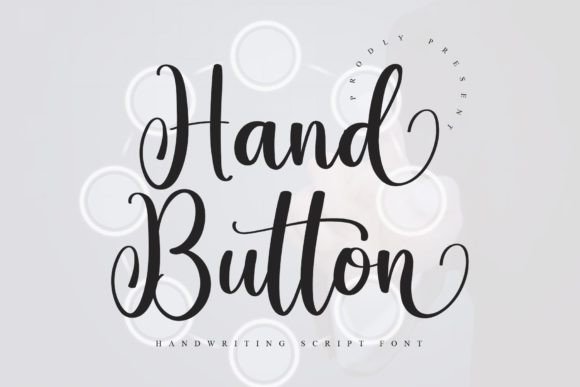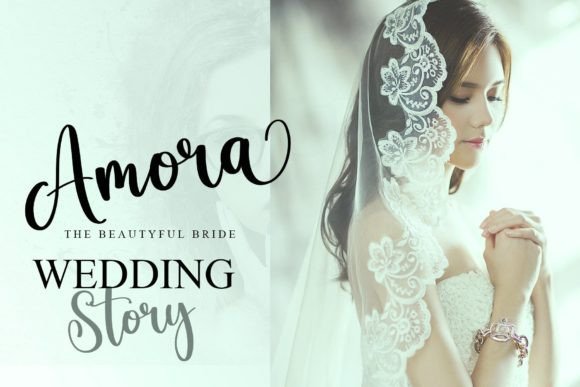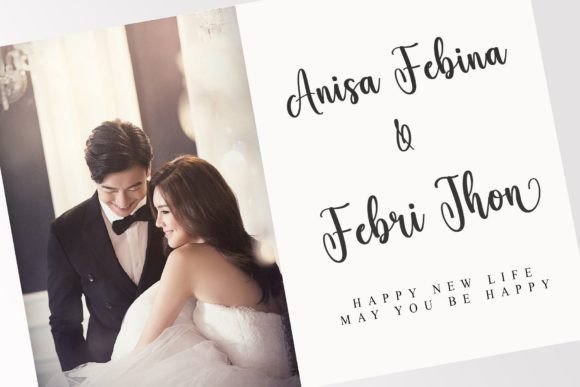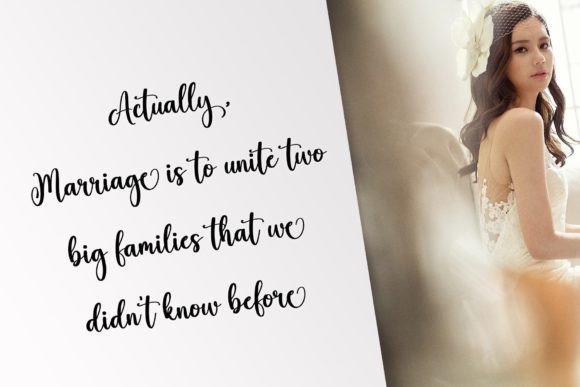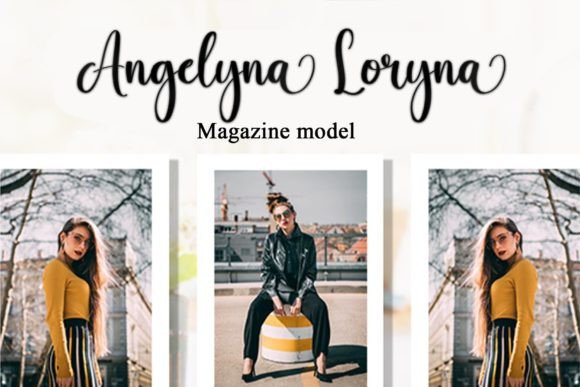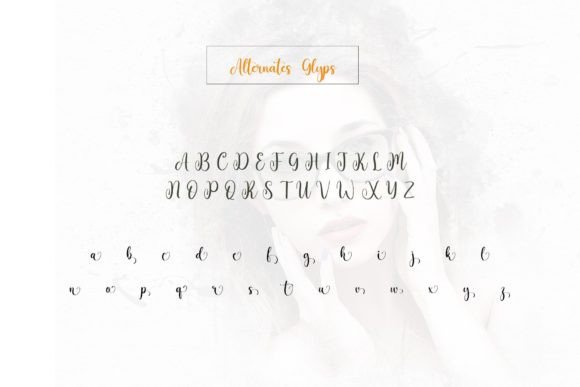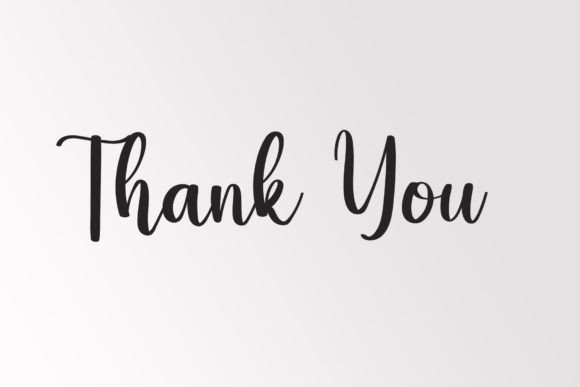
Hand Button, a magical script font, has been meticulously crafted with a touch of elegance, making it a captivating addition to your design toolkit. Whether you’re seeking fonts for Instagram posts or calligraphy scripts for DIY projects, Hand Button possesses the transformative power to turn any creative idea into a genuine piece of art.
The magic of Hand Button lies in its intricate script, which effortlessly combines elegance with a touch of whimsy. The careful attention to detail is evident in every curve and stroke, creating a font that exudes charm and sophistication. This makes it well-suited for a variety of creative projects, adding a distinctive and artistic flair to your designs.
Designed to cater to a range of creative endeavors, Hand Button is versatile enough to elevate your presence on social media platforms like Instagram. Its unique script style ensures that your text stands out, making it perfect for quotes, captions, and other attention-grabbing content. The font’s magical quality adds an enchanting element to your digital presence, making it a delightful choice for those who want to make an impact online.
For DIY projects that demand a personalized and artistic touch, Hand Button proves to be an invaluable asset. Its elegant script lends itself beautifully to handmade creations such as invitations, greeting cards, and artistic prints. The font’s ability to transform ordinary text into a visual masterpiece makes it a go-to choice for those who value creativity and individuality in their projects.
An additional feature that enhances the versatility of Hand Button is its PUA encoding. This encoding not only showcases the commitment to user accessibility but also unlocks a treasure trove of amazing glyphs and ligatures. Navigating through these elements becomes a seamless experience, providing users with the tools to explore and incorporate various design elements effortlessly.
In essence, Hand Button transcends the realm of ordinary fonts by infusing a touch of magic and elegance into your creative endeavors. Whether you’re using it for social media, DIY projects, or other design ventures, this font has the power to transform your ideas into true works of art. Its PUA encoding further ensures that accessing the delightful glyphs and ligatures is as enchanting as the designs you create with them.